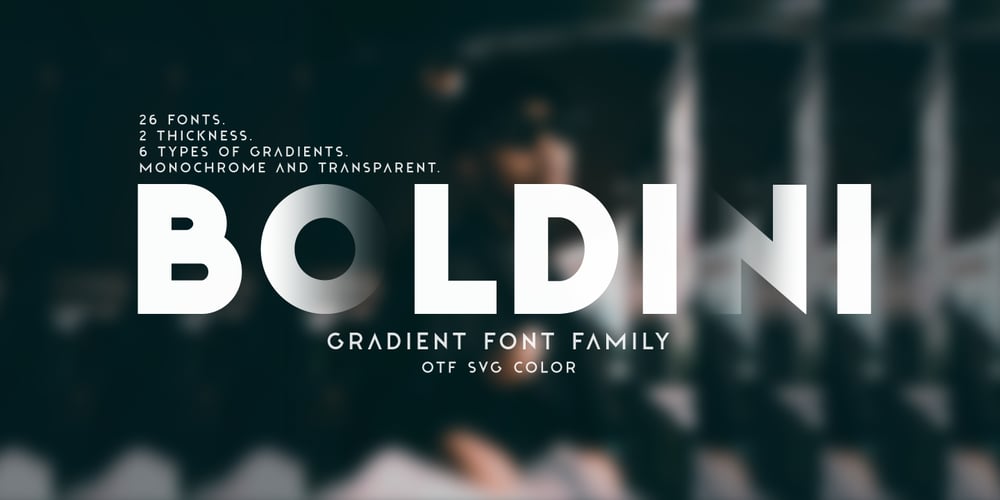
Boldini Font Family was designed by Lauritta Ivanova and published by Luxfont. Boldini contains 27 styles and family package options. Introducing the unique family of COLORED fonts “Boldini” with minimalistic clean letters of a harmonious form in the style of modern POP culture. You no longer need to adjust the gradient for each letter, letters are immediately printed in gradient! Gradient fonts is perfect for headlines for fashion websites, magazines, and print design, and the basic solid font is suitable for branding boutique signs as well as for large amounts of text, because the font is very readable in a small size. Font family has two thicknesses – bold & regular, 6 gradient directions, gradient fonts also 2 type – with transparency and without transparency, as well as 2 basic monochrome fonts. Font consists of letters of the same height without division into uppercase and lowercase glyphs. *See also these fonts, which based on this family: Culoare & Anaglyph. Which means that if necessary you can combine these families and they will be absolutely stylistically identical and complement each other. Check the quality before purchasing and try the FREE DEMO version of the font to make sure your software supports color fonts. Features: Such color combinations in gradients are universal and very convenient for repainting. IMPORTANT: – OTF SVG fonts contain vector letters with gradients and transparency. – Multicolor OTF version of this font will show up only in apps that are compatible with color fonts, like Adobe Photoshop CC 2017.0.1 and above, Illustrator CC 2018. Learn more about color fonts & their support in third-party apps on www.colorfonts.wtf – Don’t worry about what you see all fonts in black and not in multicolor in the tab “Individual Styles” – all fonts are working and have passed technical inspection, but not displayed in multicolor they, just because the website MyFonts is not yet able to show a preview of colored fonts. Then if you have software with support colored fonts – you can be sure that after installing fonts into the system you will be able to use them like every other classic font. Question/answer: How to install a font? The procedure for installing the font in the system has not changed. Install the font as you would install the classic OTF | TTF fonts. How can I change the font color to my color? · Adobe Illustrator: Convert text to outline and easily change color to your taste as if you were repainting a simple vector shape. · Adobe Photoshop: You can easily repaint text layer with Layer effects and color overlay. Try to experiment, it is so interesting and very easy! ld.luxfont@gmail.com